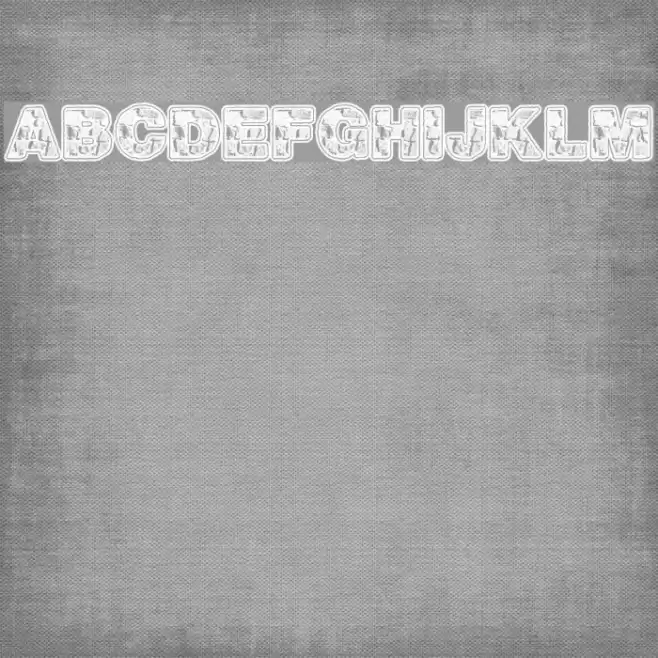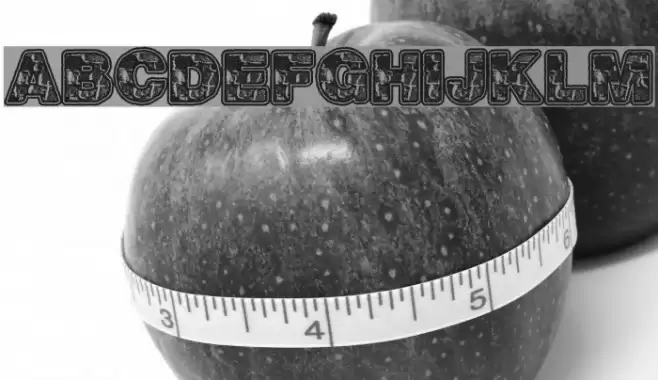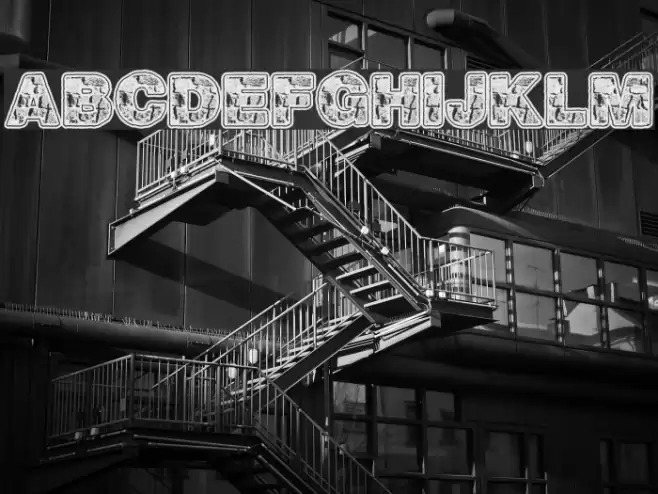
hotrocks Font
hotrocks Description
This font features a bold, decorative style with a textured, rock-like appearance. Each character is filled with intricate patterns that resemble cracks and crevices, giving it a rugged and dynamic look. The uppercase letters are prominent and eye-catching, while the numbers and special characters maintain the same bold, textured aesthetic. The overall design is reminiscent of natural stone, making it ideal for projects that require a strong, impactful visual presence. The font's unique style is perfect for creating standout headlines, posters, and logos that demand attention.
A bold, textured font with a rock-like, decorative style from Distorted Eroded fonts.
- Proposed Projects: Ideal for posters, logos, and headlines that require a strong, rugged aesthetic.